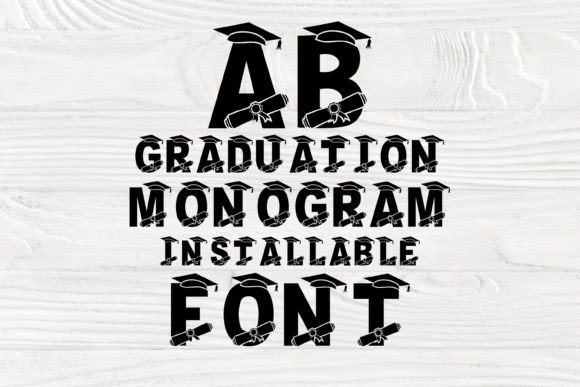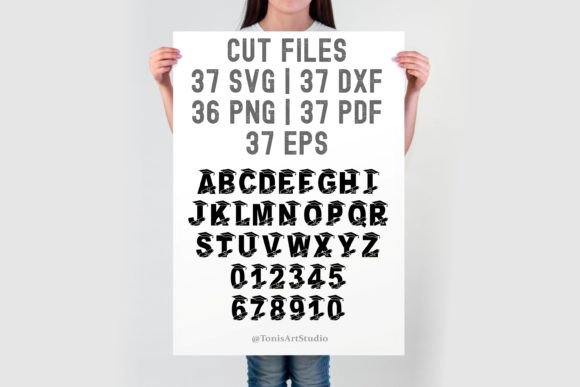
Graduation Monogram Font
Celebrate the achievements of your loved ones with our exclusive Graduate Font, perfect for all your creative projects. This font includes TTF files tailored for graduation monograms, proud family memorabilia, and various celebratory crafts. With a full monogram alphabet featuring school letters and numbers, plus a stylish graduation cap SVG, you have everything you need to create unique designs.